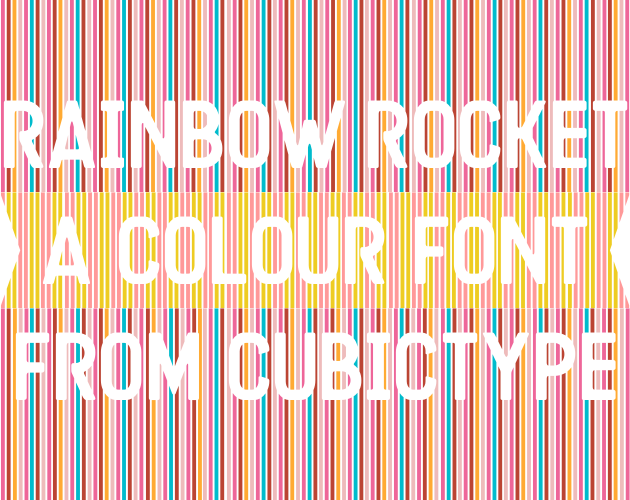
Rainbow Rocket Font
Rainbow Rocket is a colour font following Schaefer Versalien, Lucina, and Filicudi (Ulrike Rausch). Over 20 different colour style are available.
The glyph forms are based on my own found stencil font Arugula; with bridges filled in and various other adjustments made for this design.
The repertoire is fairly limited: Capitals-only base Latin alphabet of A to Z, Æ, Œ, Ð, Þ, 10 numbers, and only a few punctuations and decorations; the only diacritic (accent) supported is the macron (above) and macron below.
This font family consists of a number of colour fonts each representing a different colour palette. At time of launch there are more than 20 such colour fonts. Each colour font has identical glyphs and OpenType Layout features.
In summary, the family has:
- more than 20 colourways;
- a variety of decorative endcaps selectable using Stylistic Sets;
- Character Variants for a small number of glyphs;
- accents are supported with pre-built accented letters, such as Ā
/Amacron, and also; - accents are supported with Unicode COMBINING codepoints, but the only accents supported are macron above, U+0304 COMBINING MACRON, and macron below, U+0331 COMBINING MACRON BELOW.
Each colourway is a separate style in the font family, and when several are installed should be individually selectable as a style from within the font family.
On Colours and Palettes
The colours and palettes and their combinations have been a real journey for this font family. I have found them very much organically and opportunistically, resulting in a selection that is neither comprehensive nor systematic. Instead the colours and palettes show various singular moments that were worked into a colour font.
All of the colours and palettes have been tweaked and edited, to provide the best arrangement.
There are a few groups, some of which were intentional, others grew out of the process.
Home and Garden
Colours literally from my home and garden, and occasionally other homes and gardens, including the generic.
Home Green and Home Blue are fabric colours. Home Brown looks like my Nain’s tobacco-stained curtains in the 1970s, but is actually collected from some shades of brown, yellow, and orange i had lying around.
The accompanying garden series consists of a blue (sky), cherry/pink (blossom), purple (honesty/Lunaria), and red (Acer palmatum).
Manufactory
Sheffield Brick is taken from a few Sheffield Bricks (my house and in the neighbourhood). Slate only looks like slate, it is sourced from a decorative roundel made of a composite stone material, and isn’t actual slate (probably). NPCT is short for Nibling’s Plastic Construction Toy, a generic name for a collection of branded bricks that they donated to me; since my own childhood, the range of the colours that these manufactured bricks come in has exploded, and i picked out the ones that were more unusual to me.
For fans of Taylor Swift
Inspired by, and using parts of, W. Jake Thompson’s excellent taylor R package, i created a few palettes for this series as a nod to the Taylor Swift fandom. TSLover and TSRedTV are of course taken from the albums Lover and Red (Taylor’s Version); TSSNTV is from Speak Now (Taylor’s Version). Extensive though the taylor package is, it did not have a palette corresponding to the Sunrise Boulevard vinyl pressing of 1989 (Taylor’s Version), so i had the opportunity to exercise just a little creative freedom to create my own, which is TS1989TVSB. Fans can get this download at 100% discount by following this secret link for Swifties.
Cake or Death
The title of this section is a reference to an amusing Suzy Izzard sketch, in which a British interrogator is required by the habits of society to offer cake as well as death, in order to induce their subjects to reveal their secrets.
You however, do not need to choose between cake or death, you can have cake and Death.
The cake is Battenberg, and a variant with similar colours that i have called Bergbatten.
Choose the font style WOD and choose death: the colours are taken fron the literally lethal book Shadows from the Walls of Death; a book which collects physical samples of wallpaper that contains arsenic, bound together so the book can be used to document and warn people away from these wallpapers. The arsenic of course makes the book itself quite dangerous. Luckily for me, the Internet Archive has a scan. The arsenic in wallpapers is mostly from Paris Green, used to make the various shades and tints of green seen in the book.
Miscellanium
A few more colour palettes do not fall into any of the above:
- Adler, based on a brochure for the font Ad Lib, courtesy Letterform Archive;
- Alex, based on Alex’s hair;
- CSD1, based on a Charity Shop Dress (i have quite a bit of additional material for this theme, for additional styles in the future);
- Fedi, based on the 5 node Fedigram, the Fediverse Logo.
Banners and other decorations
ASCII curly brackets, « { » and « } », actually display as decorative terminals intended to be used on the ends of short text displays.
For example, type in as {PYGOSCELIS}:
The above shows the Battenberg style of the font family.
The OpenType Layout font features ss01 ss02 ss03 ss04 can be enabled to select variations on the decoration:
The asterisk, « * », displays more like a decorative star, and the related asterism is a group of three stars.
Character Variants
- /asterisk has a smaller variant;
- capital J has a variant with an uptured hook;
in each case the OpenType Layout feature cv01 selects the alternate.
Ordinary asterisk and J:
With cv01 feature enabled, asterisk is small, J is hooked:
Spacing and Spaces
The standard space, U+0020, is 4 stripes wide. It can be useful to have other widths of space available when composing blocks of particular length. For example, when making a rectangle of 3 lines of text, you might find that you’ve got a blank space at the end of one or two of them; and in order to make all the lines exactly the same length will need spaces of length 1, 2, or 3 stripes in order to pack the gaps correctly.
Unicode has many SPACE codepoints available, and this font series implements three of them for different width spaces:
- 1-stripe width: U+200A HAIR SPACE
- 2-stripe width: U+2009 THIN SPACE
- 3-stripe width: U+2008 PUNCTUATION SPACE (same width as FULL STOP)
On macOS you may be able to use Character Viewer to insert these spaces (they can be a bit elusive, but once found, they are insertable).
On a Linux system, often the ISO 14755 keyboard input sequence Ctrl-Shift U x x x x [Enter] can be used, where x x x x is the hexadecimal code of the Unicode value you want.
Accents and Diacritics and Unicode
Not many accented letters are supported, but as a sort of compensation the Unicode code points for the combining marks U+0304 COMBINING MACRON and U+0331 COMBINING MACRON BELOW work on more glyphs than usual:
- U+0304 COMBINING MACRON (above) can go after C, D, L, N, R, S, T, W, and Z; in addition, the forms Ā, Ǣ, Ē, Ḡ, Ī, Ō, Ū, Ȳ are supported as pre-built codepoints.
- U+0304 can also can after the numbers 0 to 9, in order to put a macron (short horizontal stroke) above them.
- U+0331 COMBINING MACRON BELOW can go after A, B, C, E, G, I, S, U; in addition, the forms Ḏ, Ḵ, Ḻ, Ṉ, Ṟ, Ṯ, Ẕ are supported as pre-built codepoints.